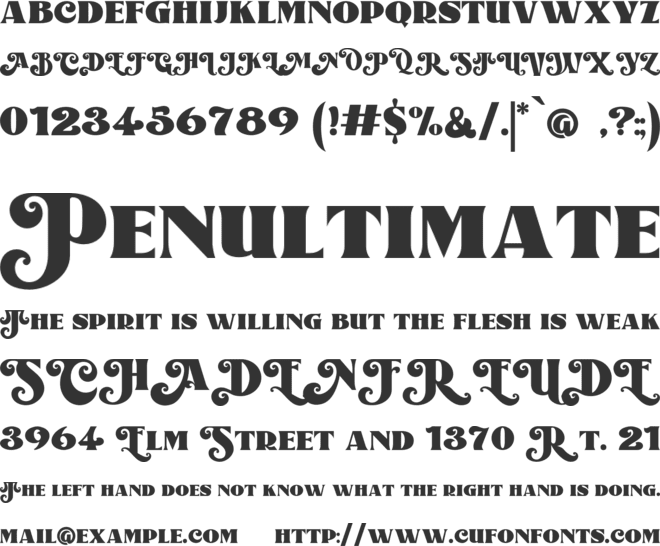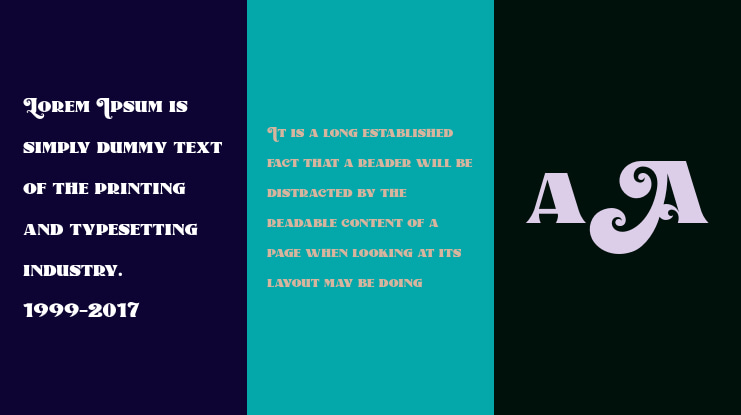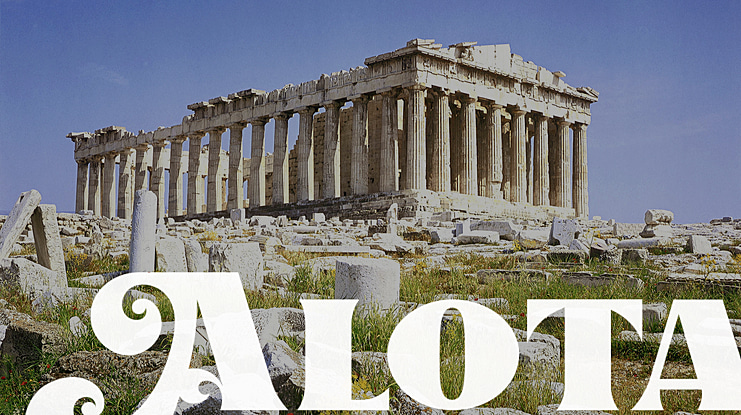
Alota Font
Eric Kurniawan
Say hi to Alota retro typeface. Inspired by 70s design styles, a good decade where we saw many calm colors with groovy, bold, 3D and round shape.